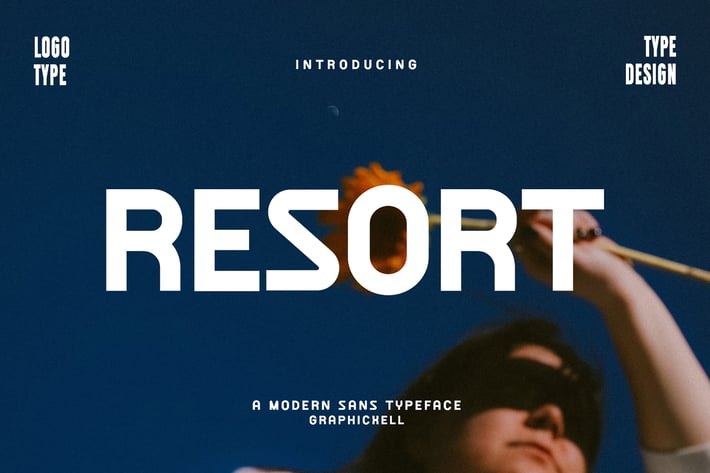
Resort Sans Font Typeface
Resort Sans Font Typeface inspired by the famous minimalist logo perfect for the purposes of designing templates, brochures, videos, advertising branding, logos, invitation, layout design, elegant crafting, beauty design and other.